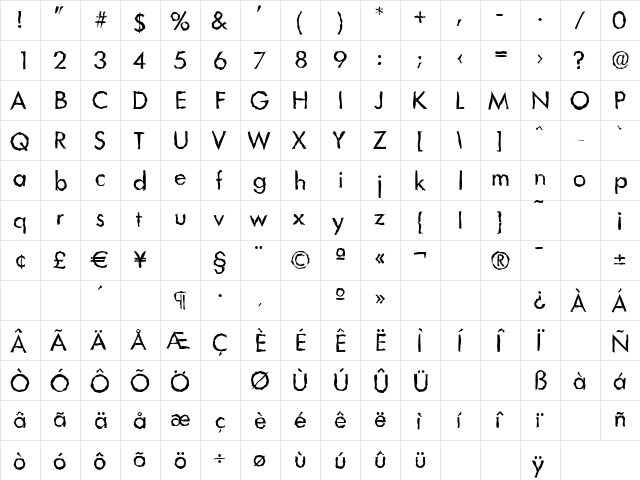
LimerickRandom Regular
Design Context for LimerickRandom Typeface
LimerickRandom is a composed and adaptable typeface that performs quietly and consistently across a wide range of design contexts.
Pro Tip: Use LimerickRandom in both headline and body roles to test its range before committing to a single application.